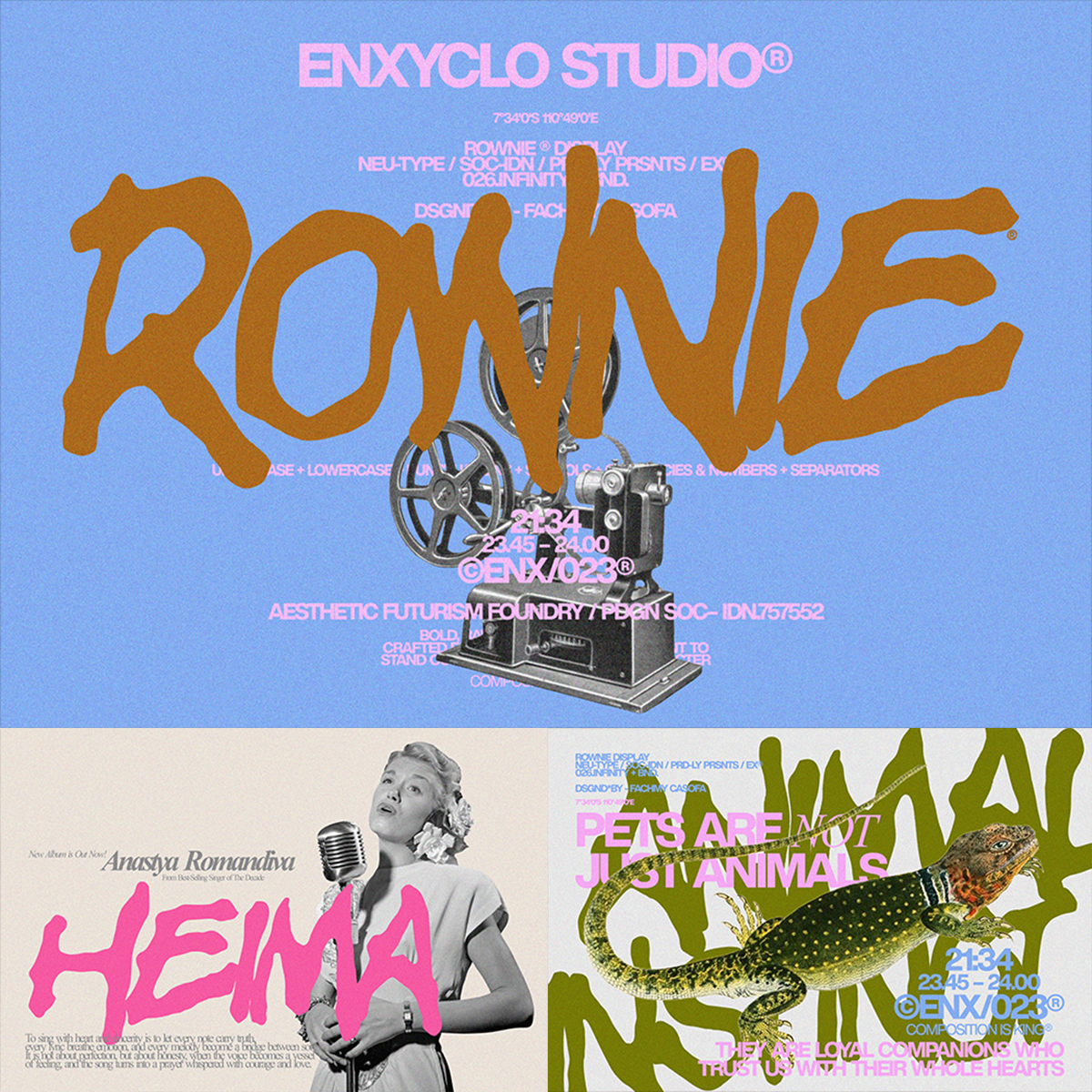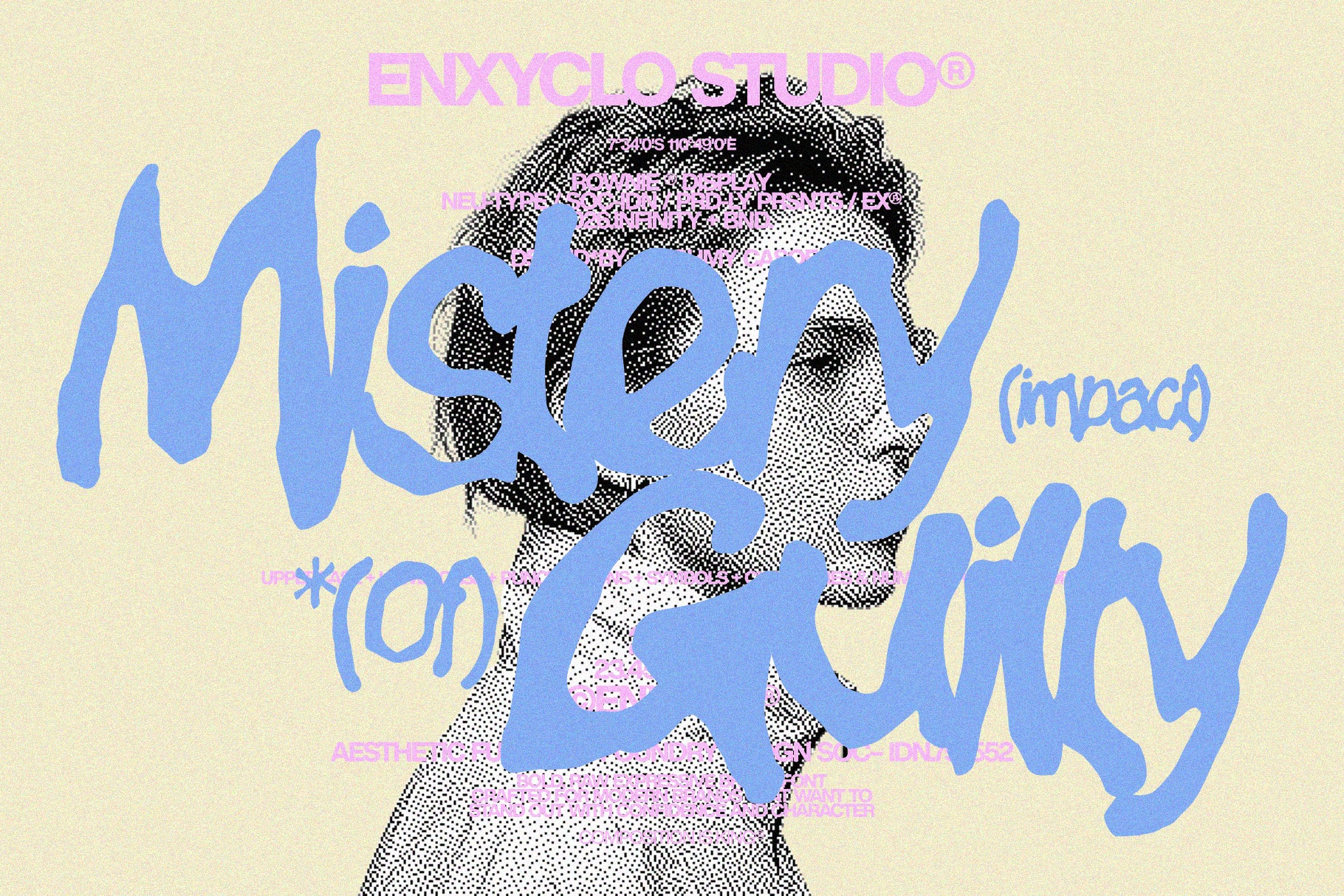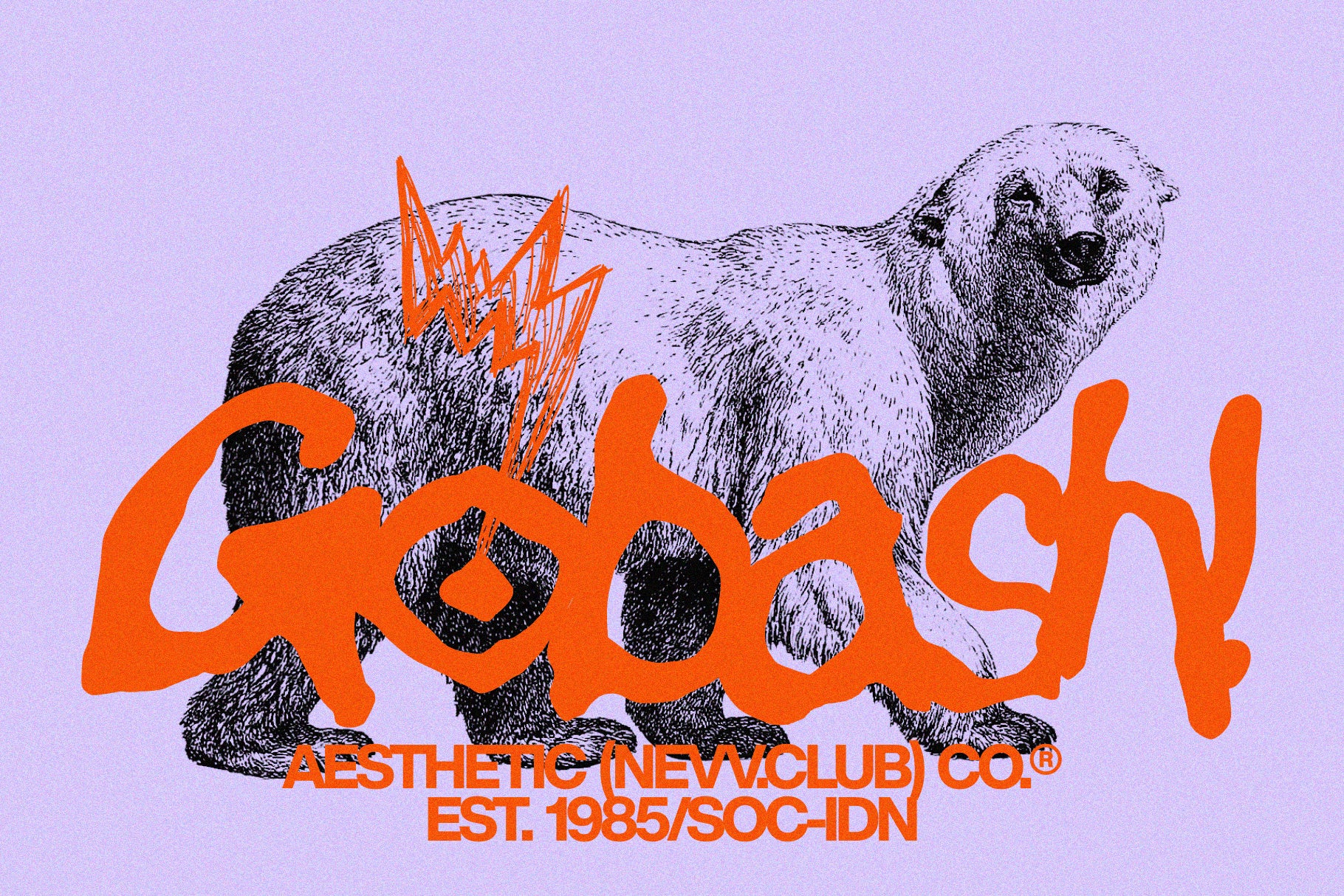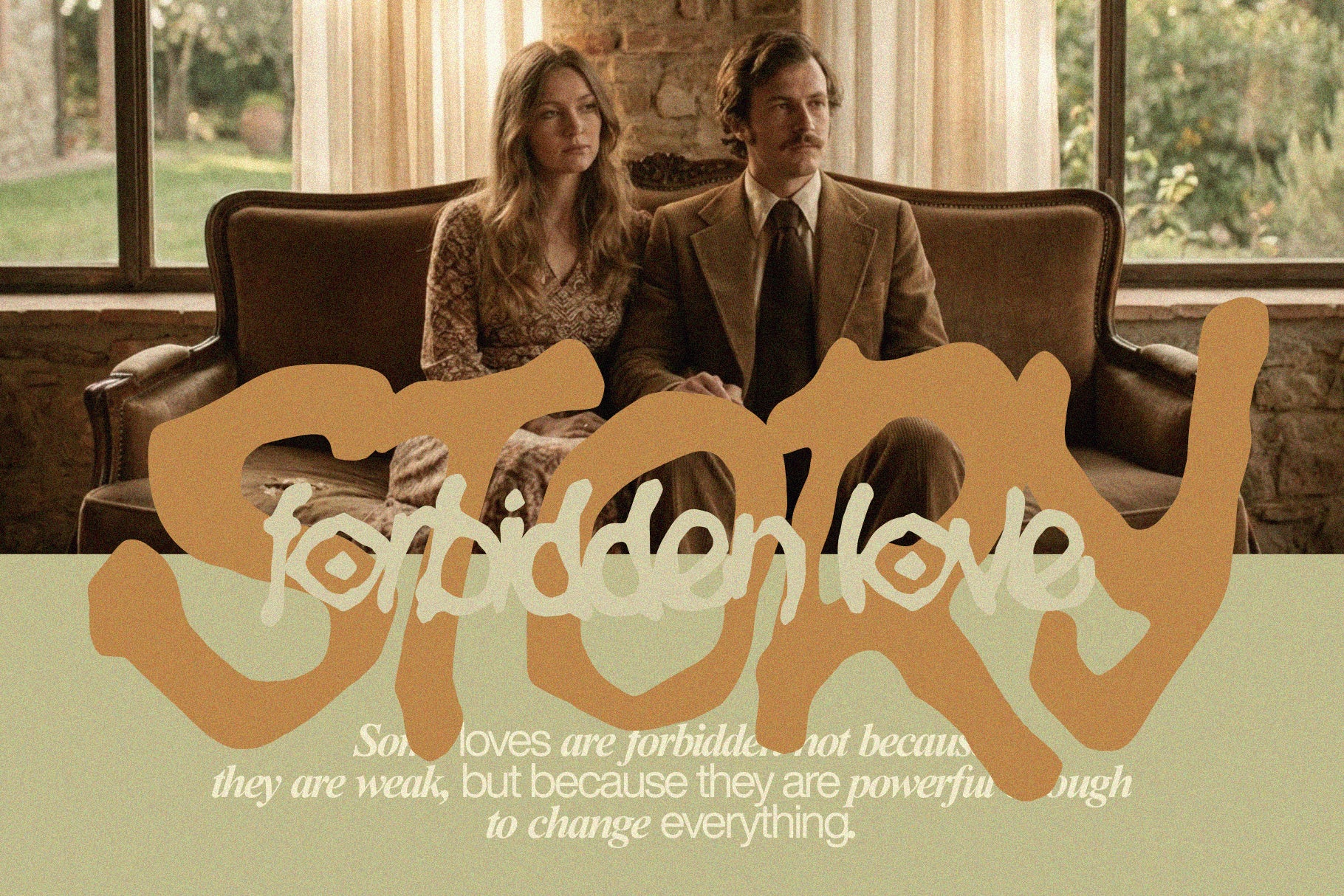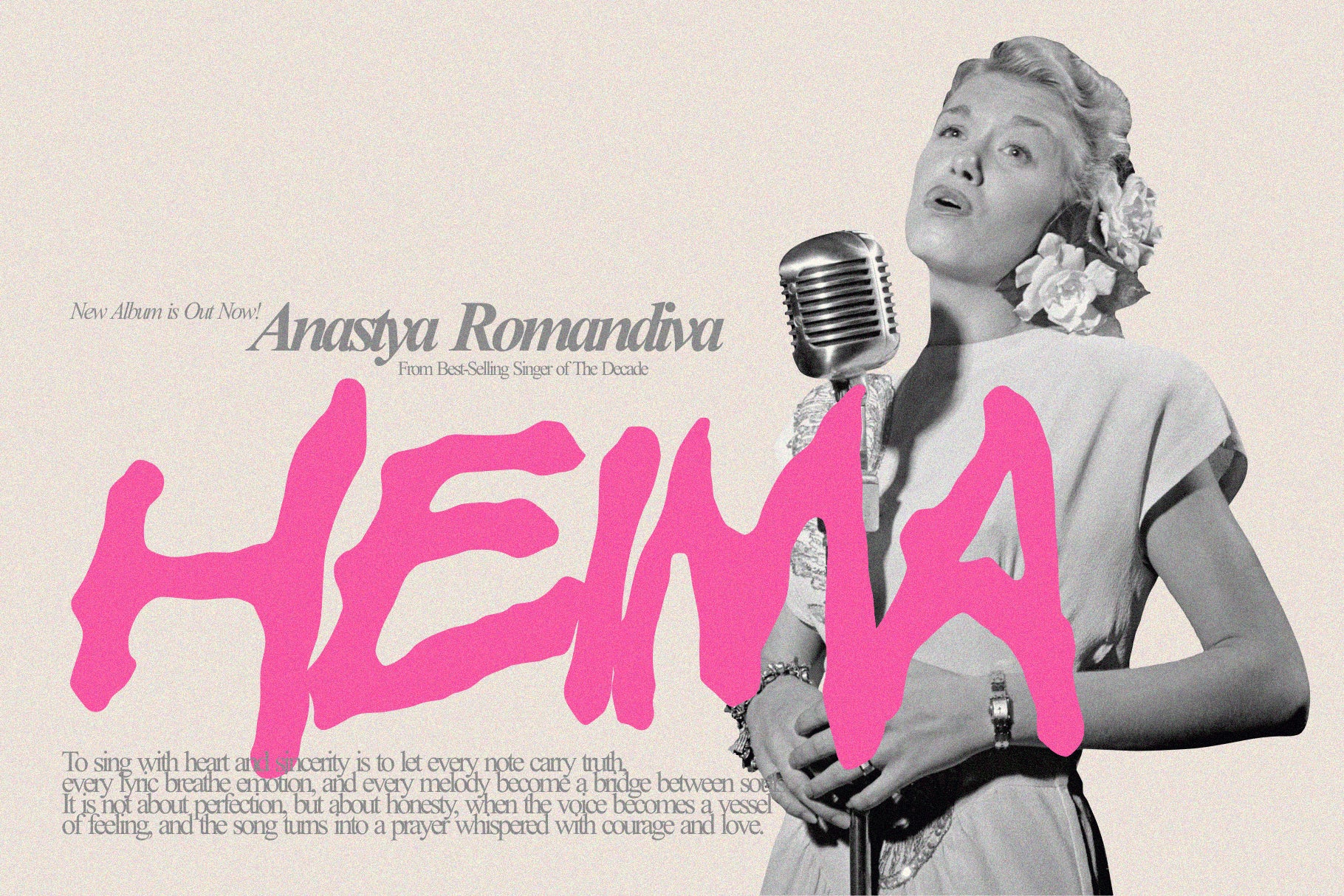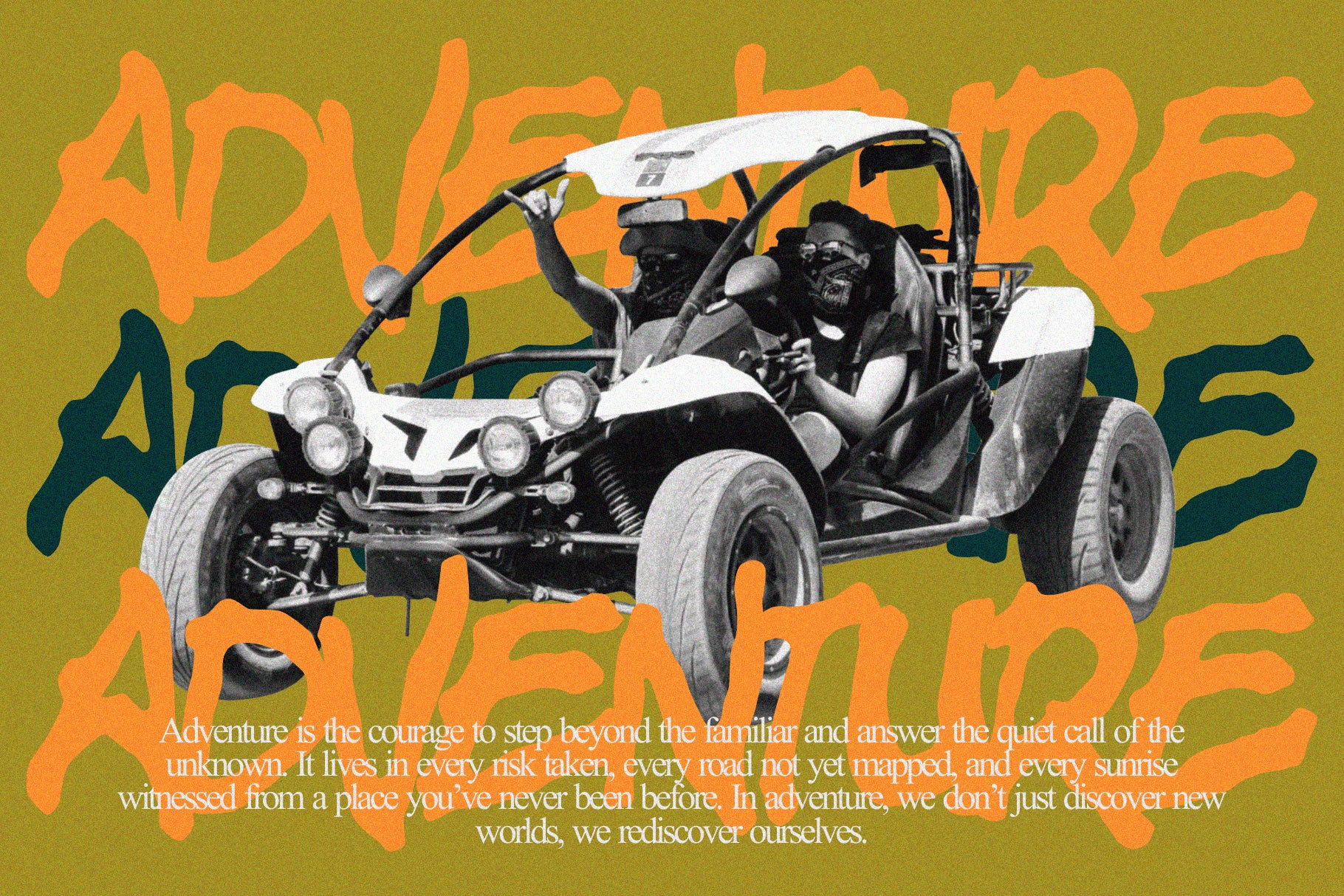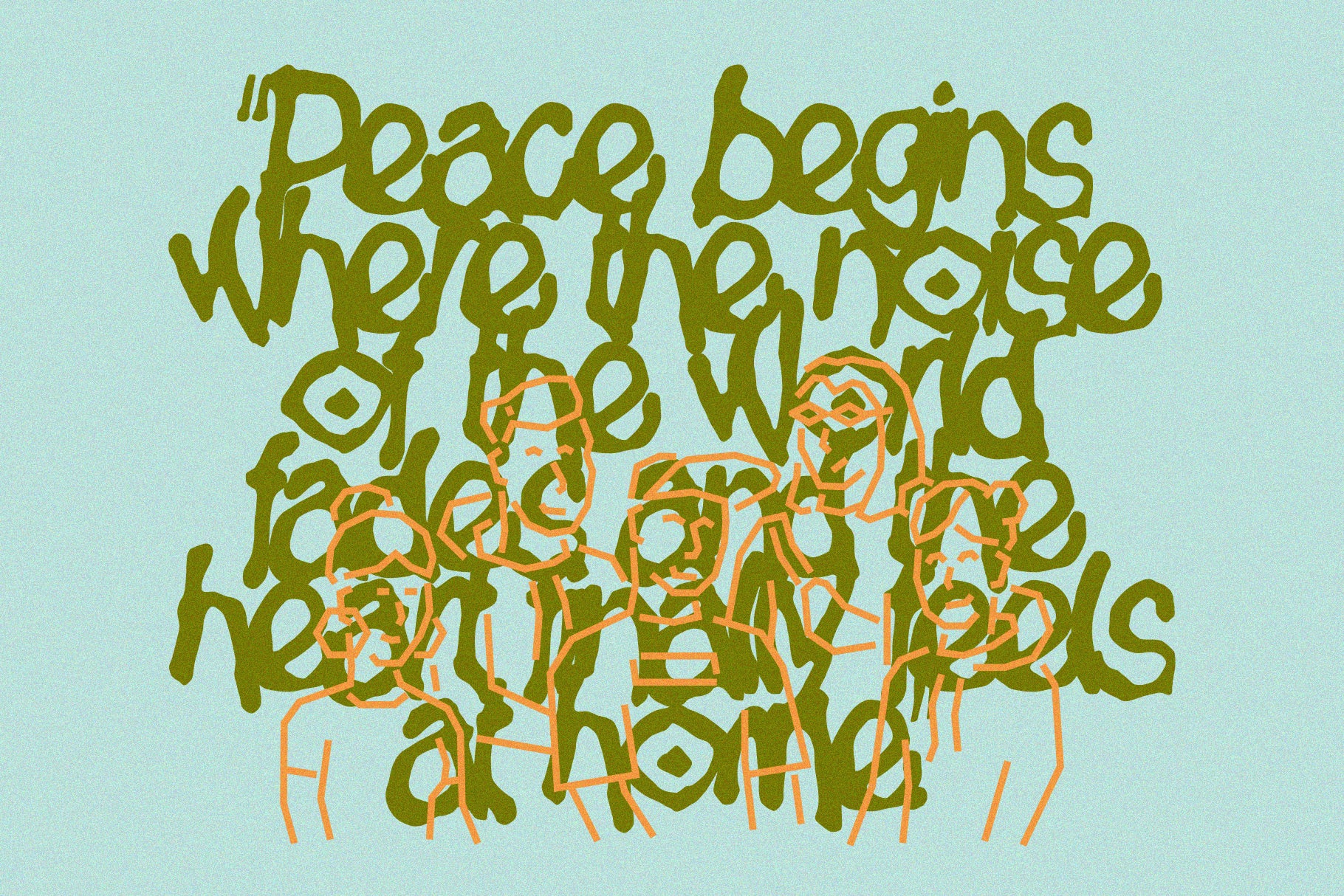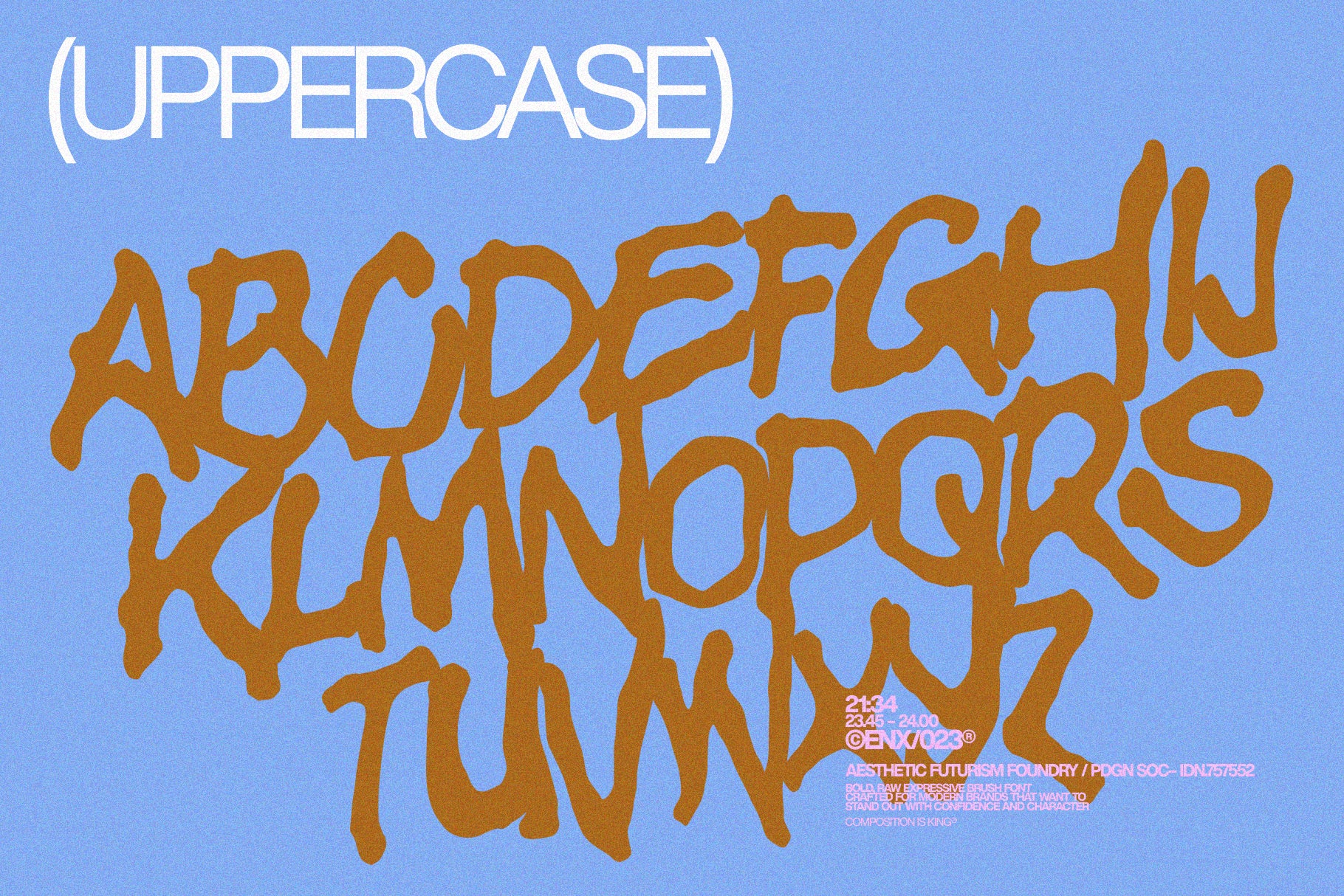
ROWNIE — Raw Gritty Modern Font
ROWNIE is a fearless expressive brush font built for modern brands that refuse to blend in. Born from rough hand-painted strokes and raw lettering energy, it captures the beauty of imperfection and transforms it into a confident contemporary statement.
Every curve carries attitude. Every stroke feels alive. ROWNIE balances gritty texture with a clean, intentional structure—creating harmony between wild expression and modern control. The result is a bold visual voice that feels authentic, handcrafted, and powerfully present.
Designed for brands that crave character, ROWNIE delivers strong readability without sacrificing personality. It’s expressive yet purposeful. Rough yet refined. Loud yet strategic.
From creative logos and agency branding to striking modern logotypes, ROWNIE injects energy and edge into every design it touches.
This isn’t a font that sits quietly in the background. ROWNIE shows up.
Creative logo & logotype design
Branding & brand identity
Modern agency visuals
Contemporary packaging
Poster & headline design
Social media graphics
Creative campaigns & visual storytelling
ROWNIE is a modern brush font characterized by its expressive, hand-painted strokes and gritty texture, designed for brands seeking a bold visual identity. It includes uppercase and lowercase letters, punctuation marks, symbols, and currency symbols, available in OTF, TTF, and WOFF formats.